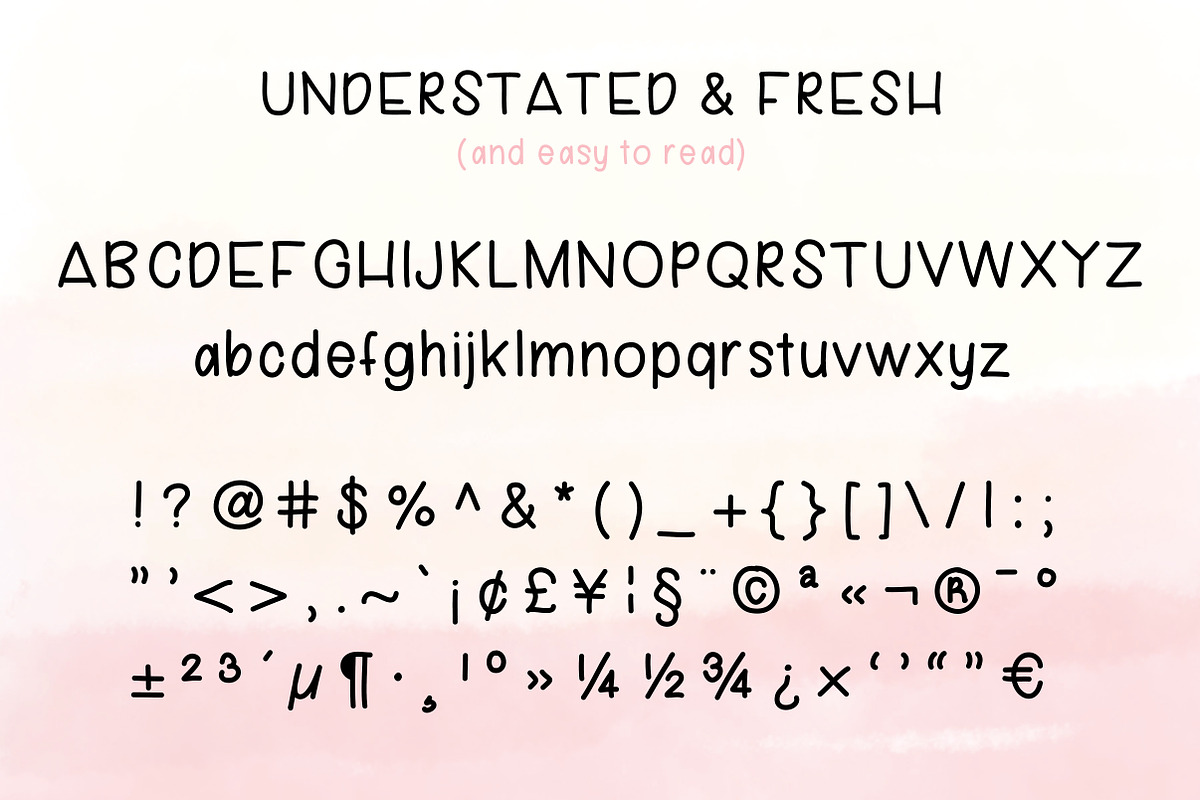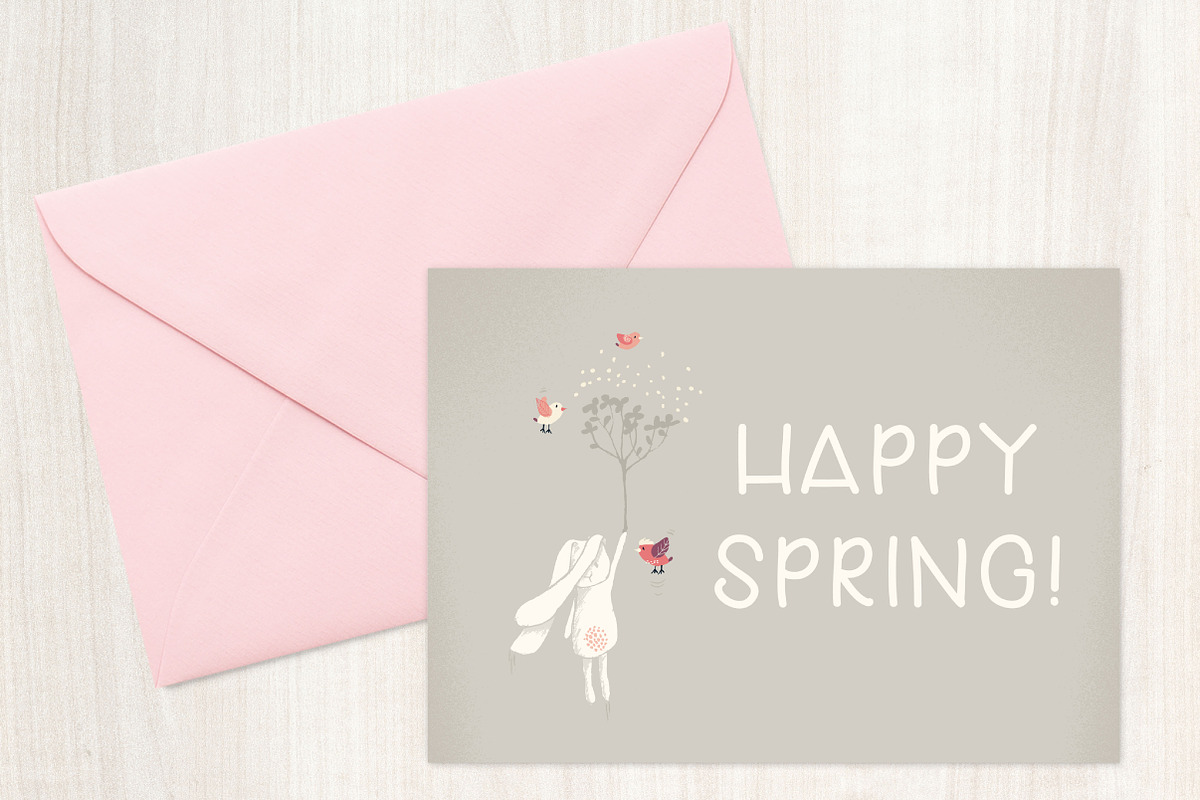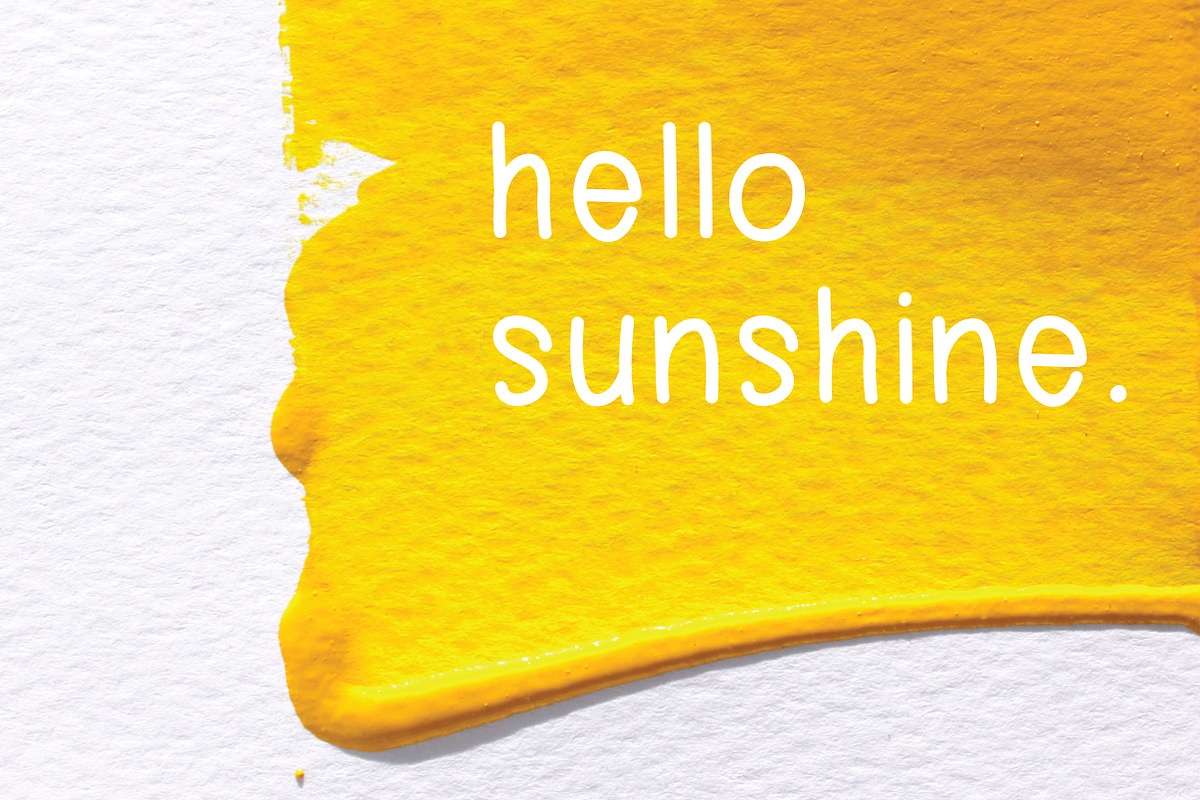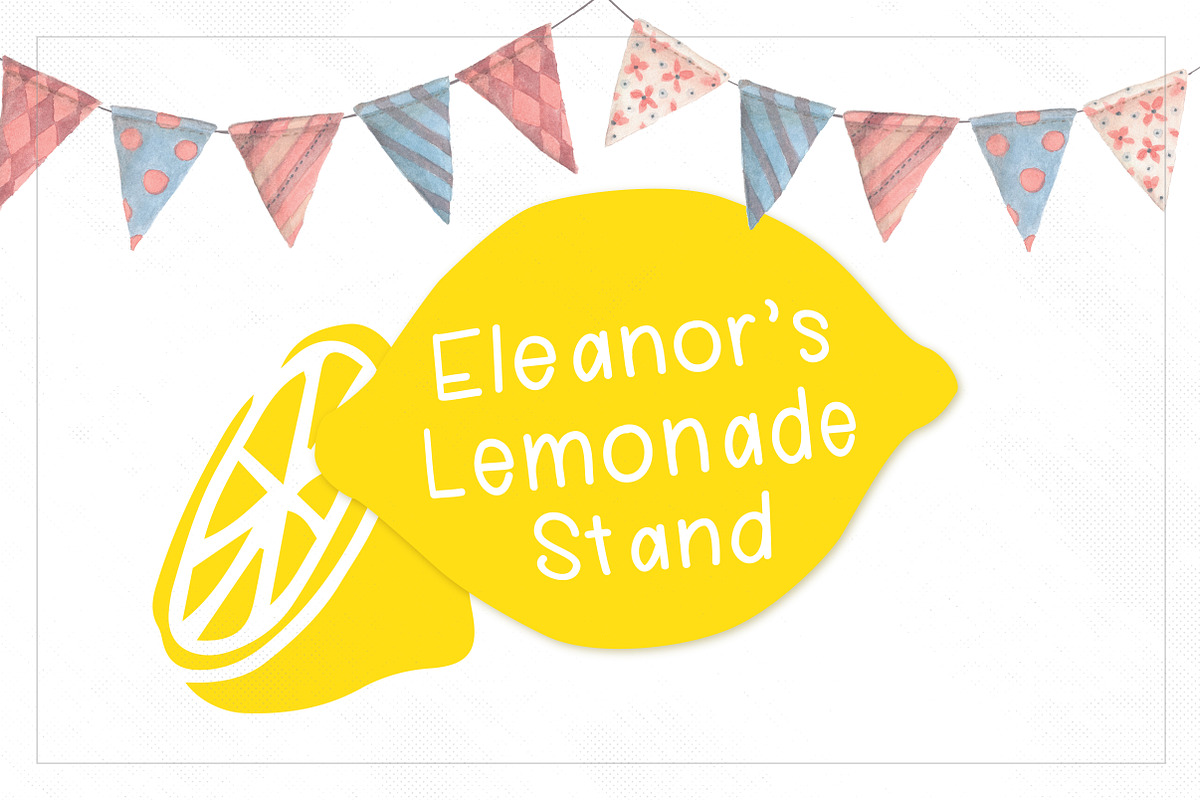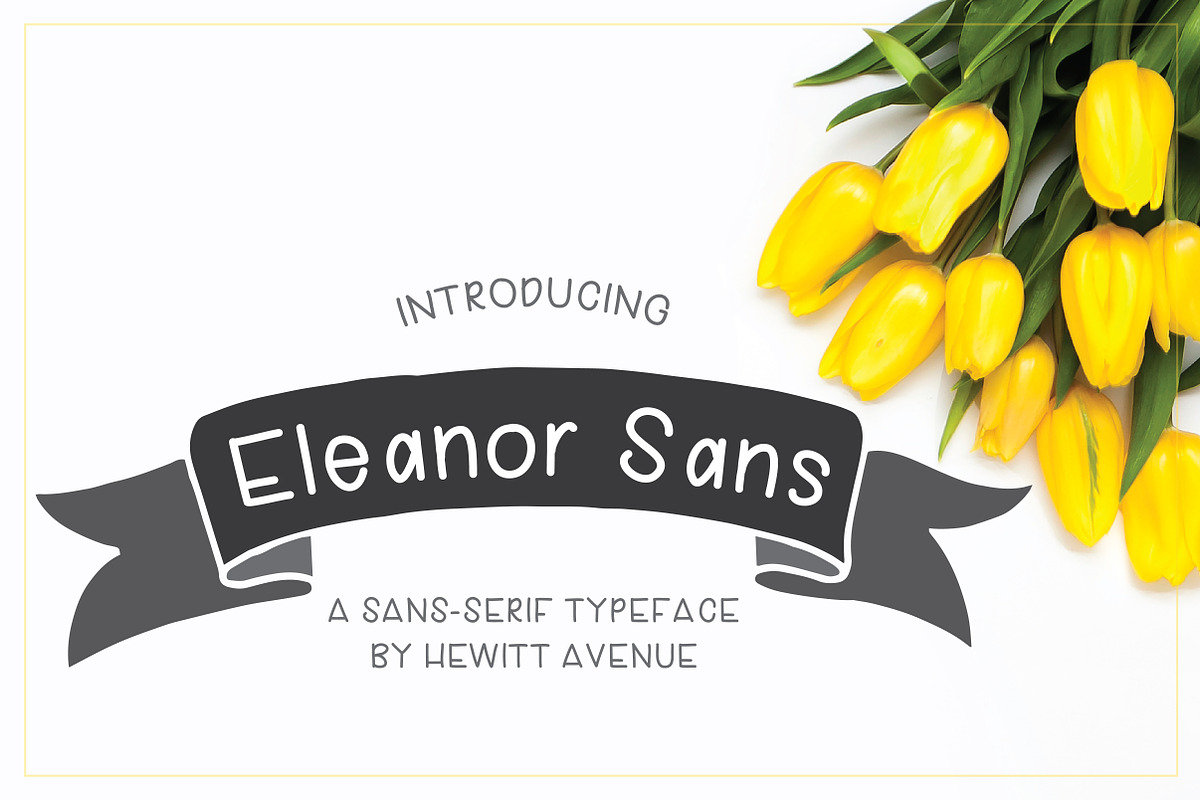
Eleanor Sans Serif Font
Eleanor Sans Serif Font by Hewitt Avenue is a font selected for branding, posters, packaging, typography.
Why Eleanor Sans Serif Font is worth a look
Eleanor Sans Serif Font by Hewitt Avenue fits naturally into Branding, posters, packaging, typography.